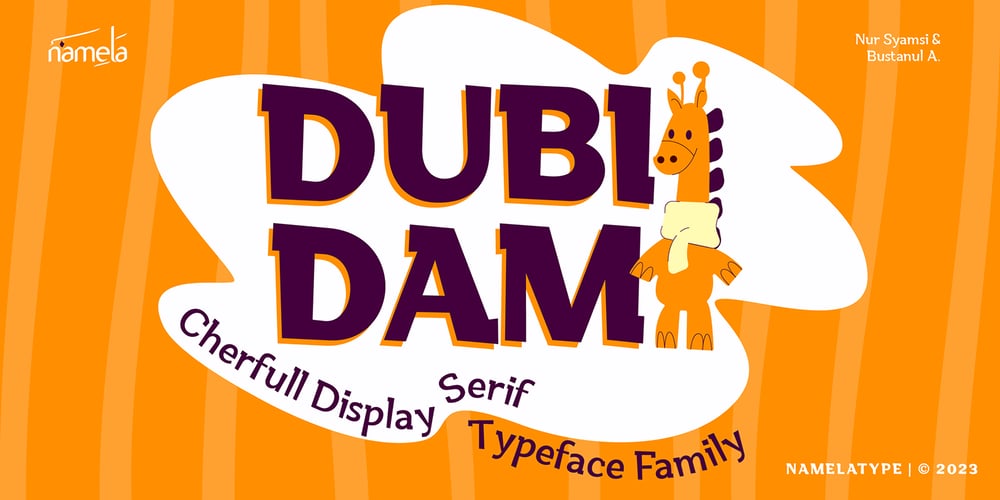
Dubidam Font Family was designed by Nur Syamsi, Bustanul Arifin and published by NamelaType. Dubidam contains 14 styles and family package options. Dubidam is A Cherfull semi-slab Typeface. Has a playful but firm style in each stem. Come with many feature; Stylistic alternate, Standard & Discretionary ligatures, multilingual characters, that can be accessed with opentype feature.Dubidam can be use for branding project, product packaging, advertising, quotes and where ever you need fun and playful design.